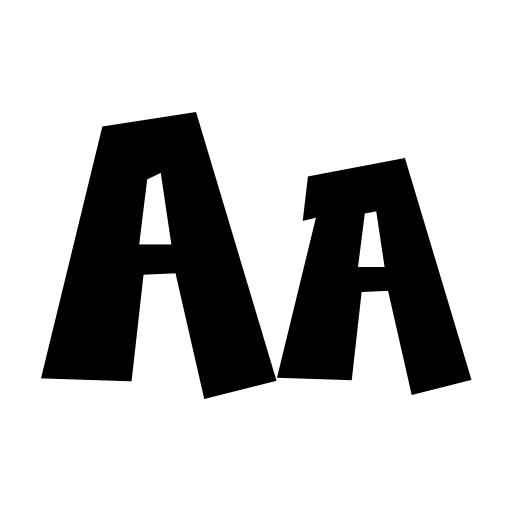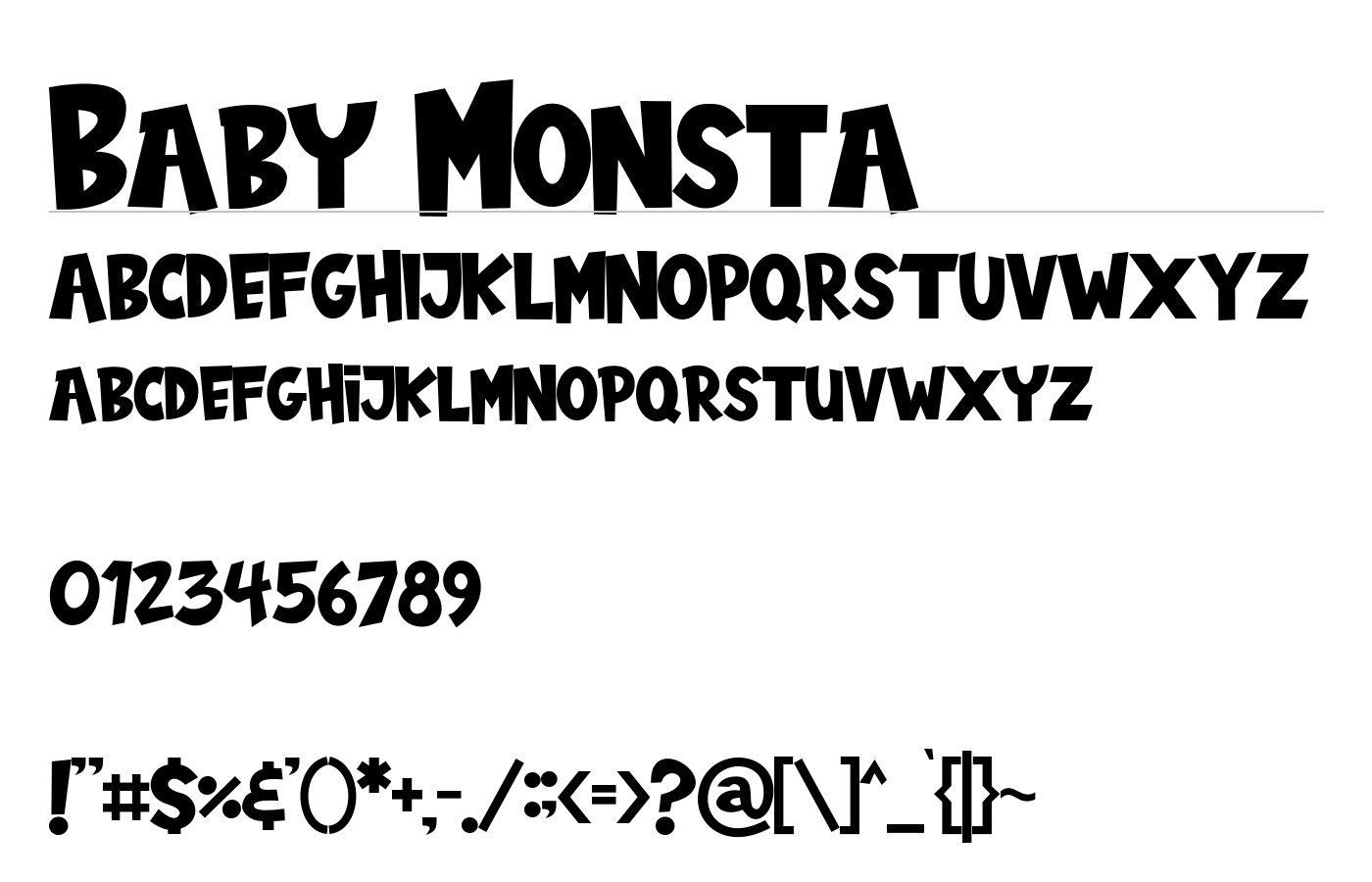
Baby Monsta is a bold and playful sans serif font with irregular, chunky letterforms that exude a fun, energetic vibe. Its uneven shapes and whimsical character make it perfect for children's books, cartoons, or any project seeking a lively and informal look. This font works wonderfully in headlines, logos, and posters where a quirky and spirited personality is desired.
Baby Monsta Font
About Baby Monsta Font
| Font family | Baby Monsta Font |
| Designer | Fachranheit 2020 |